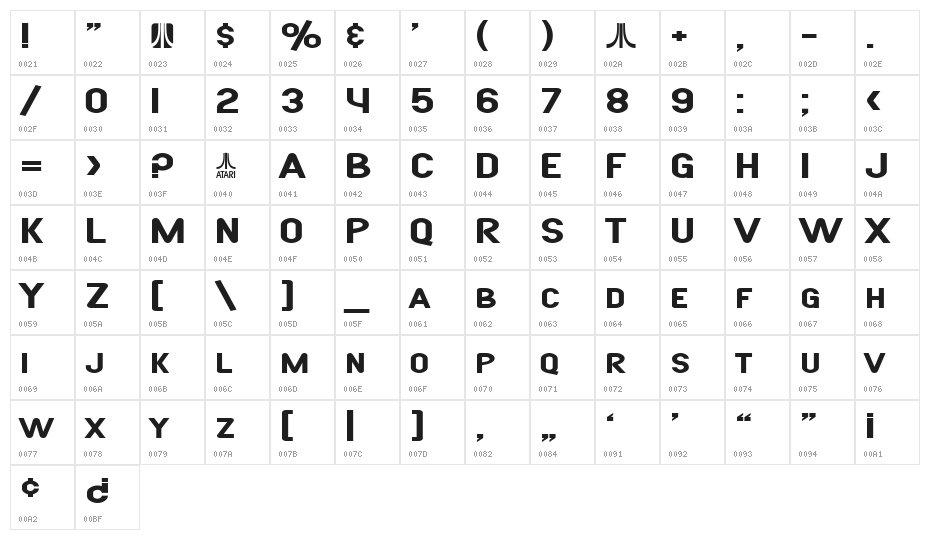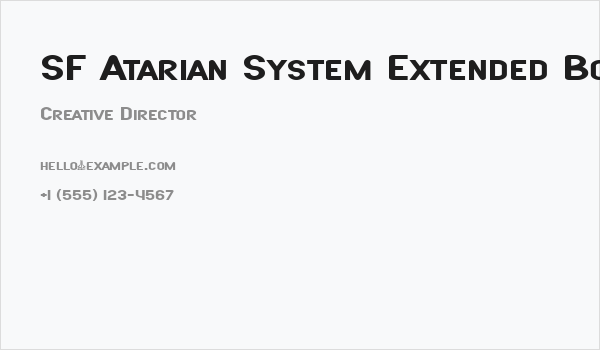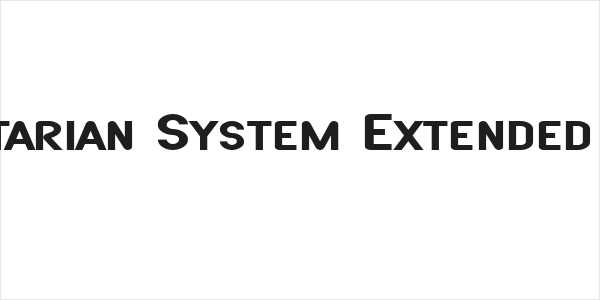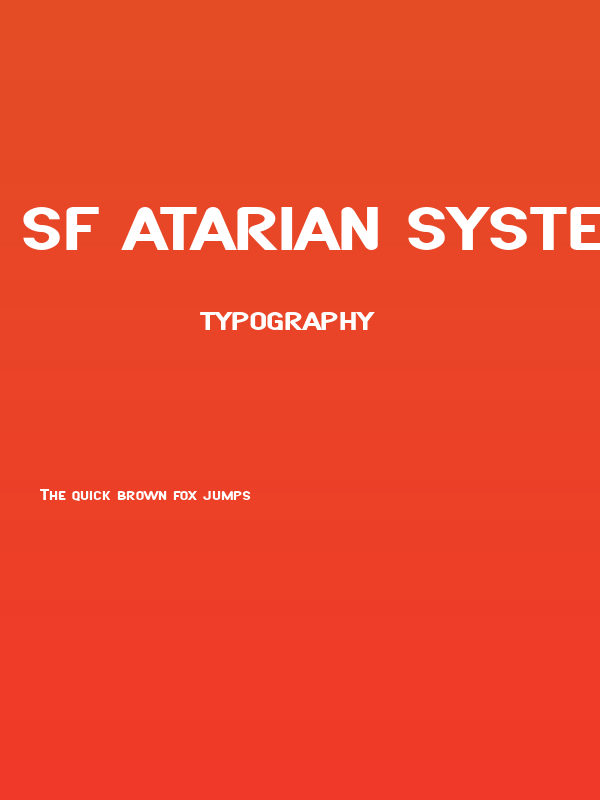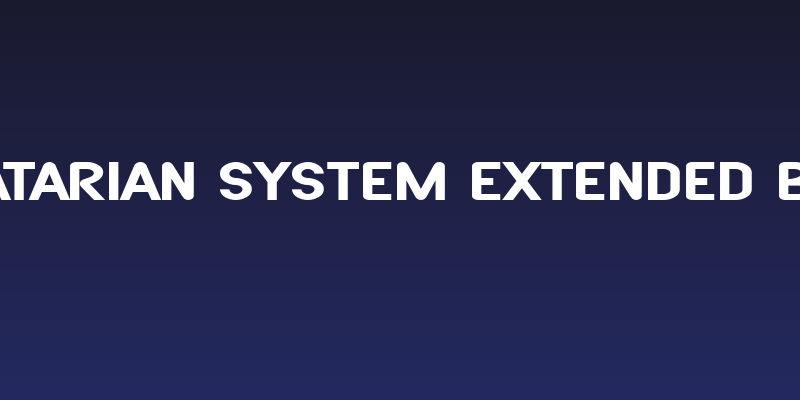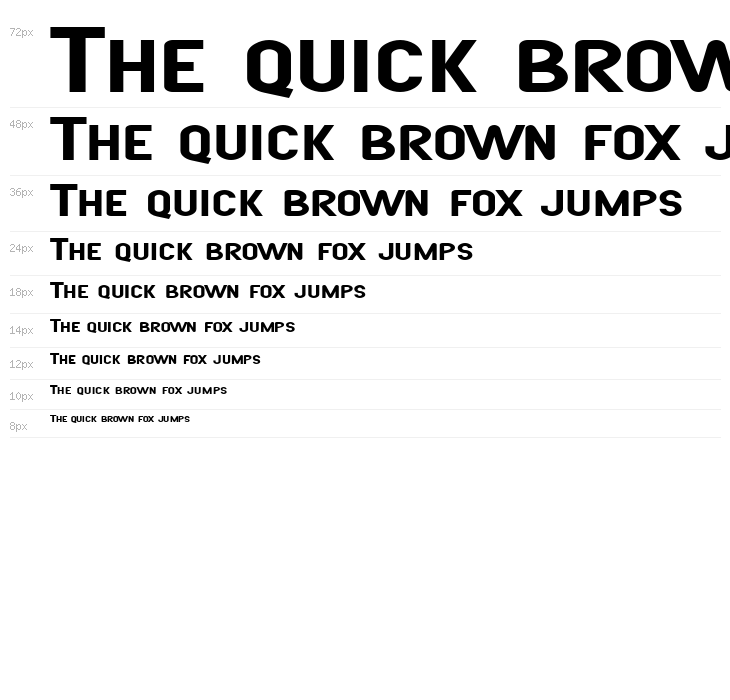
SF Atarian System Extended Bold Font
SF Atarian System Extended Bold Description
This font features a bold and extended style with a modern and geometric appearance. The characters are well-defined with a strong presence, making it suitable for impactful designs. The uppercase letters are uniform and consistent, while the numbers and special characters maintain the same boldness and clarity. The font's extended width gives it a unique look, ideal for projects that require a strong visual impact.
| Proposed Projects | Ideal for branding, headlines, posters, and digital interfaces where a strong and modern aesthetic is desired. |